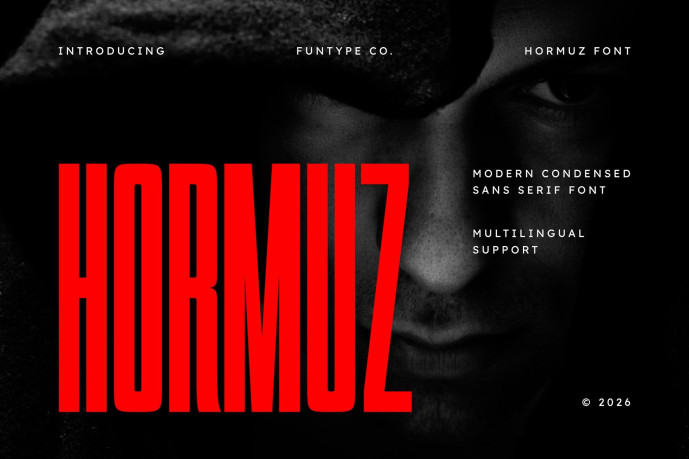
Hormuz Sans Serif Font
Hormuz Sans Serif Font is a bold, striking, and modern condensed sans serif font, thoughtfully designed to capture the essence of raw power, suspense, and high-impact cinematic storytelling. With its remarkably elongated vertical structure, solid geometric weights, and intense visual presence, Hormuz offers a professional aesthetic that brings a touch of commanding authority and modern edge to any creative layout.
This font is the ideal choice for designers looking to add a professional, rugged, and space-efficient touch to their work. Whether you are crafting a dark gaming logo, an aggressive sports team identity, a bold music album cover, or commanding urban promotional graphics, Hormuz provides a seamless blend of industrial strength and sharp minimalist design.